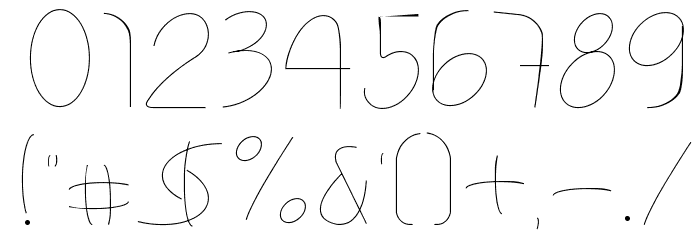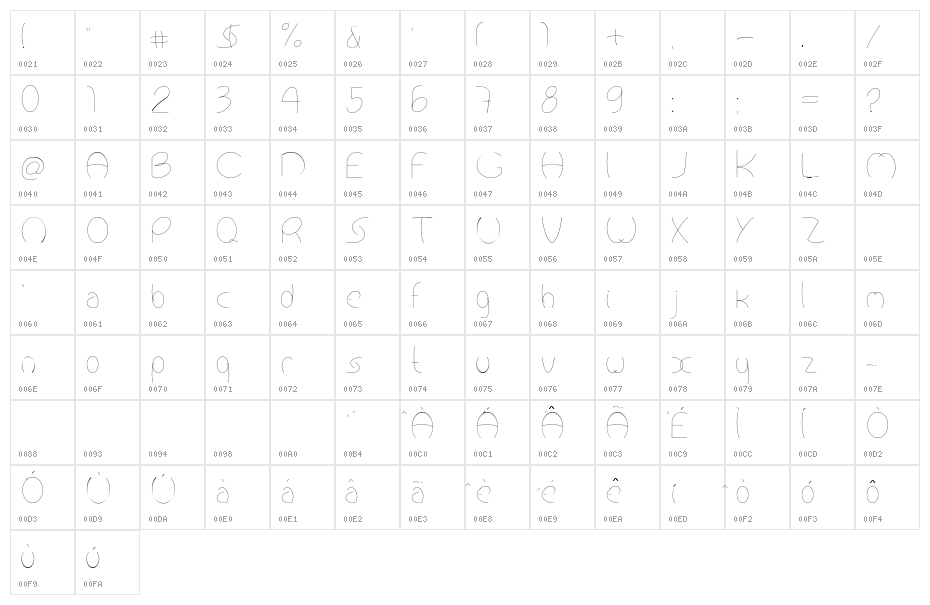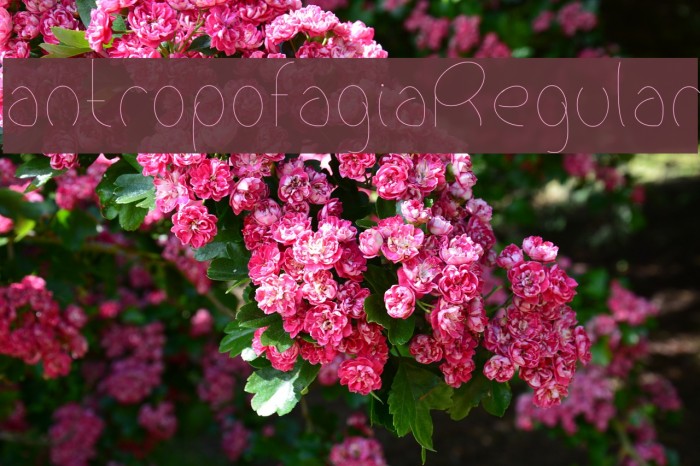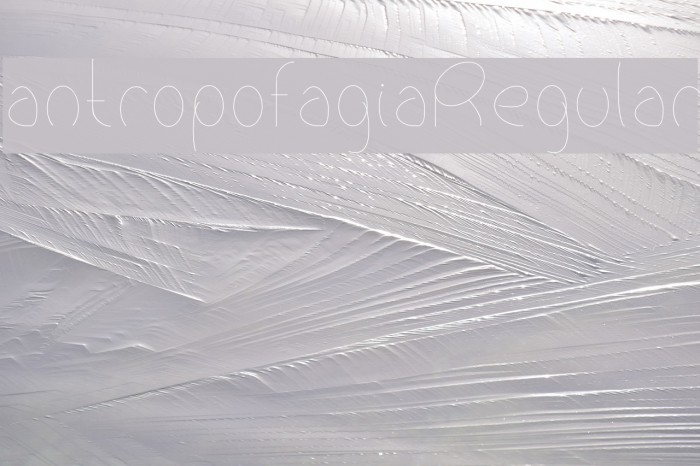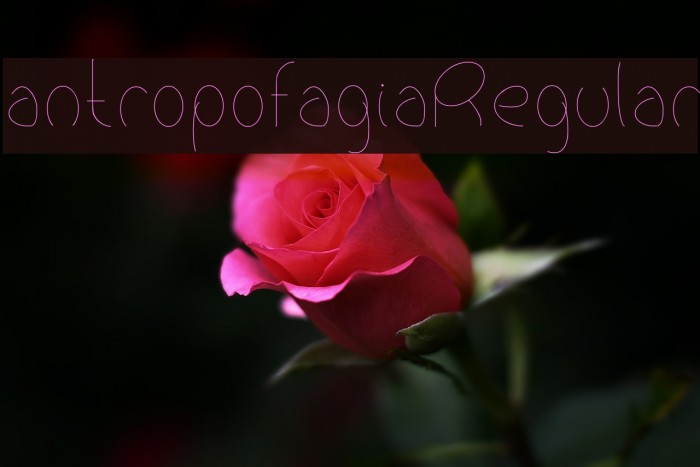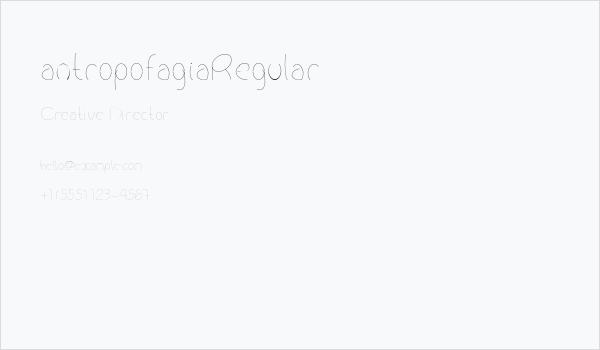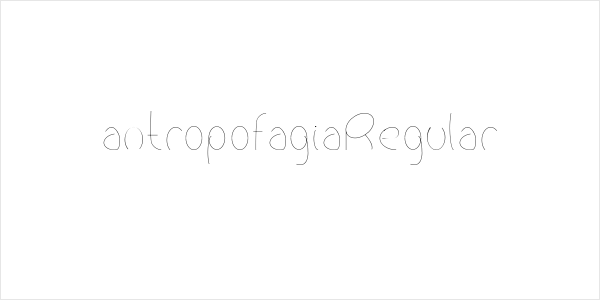
antropofagiaRegular Font
antropofagiaRegular Description
This font features a unique, minimalist design with thin, delicate strokes that create an airy and open feel. The characters are crafted with a modern aesthetic, incorporating subtle curves and a sense of fluidity. The uppercase letters maintain a consistent height, while the lowercase letters exhibit a playful yet balanced style. Numbers and special characters are designed to complement the overall look, ensuring a cohesive appearance across all text. The font's simplicity and elegance make it suitable for contemporary design projects where a clean and sophisticated look is desired.
Proposed ProjectsIdeal for modern branding, minimalist posters, elegant invitations, and contemporary web design.